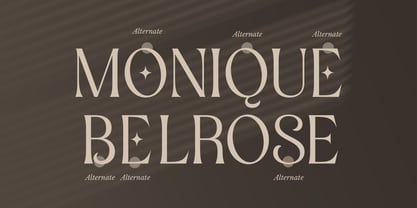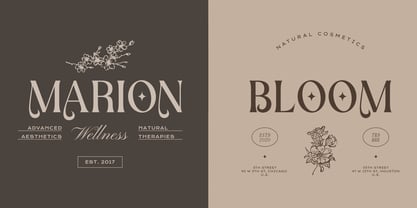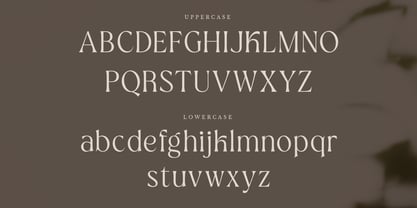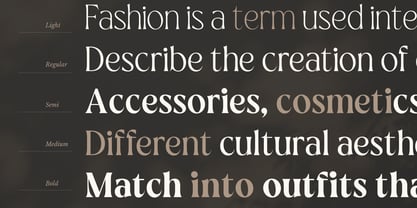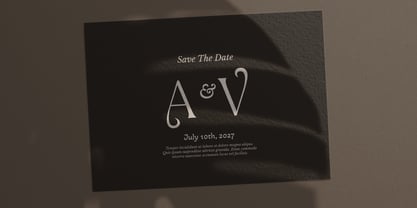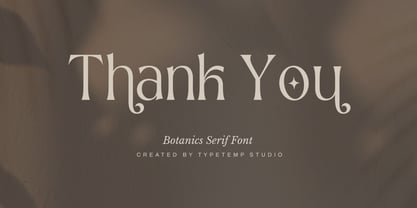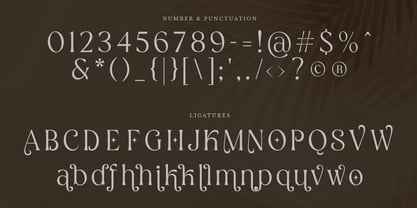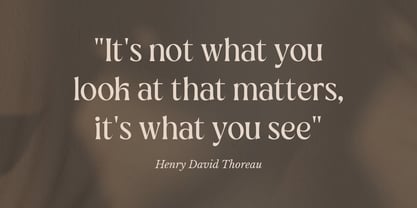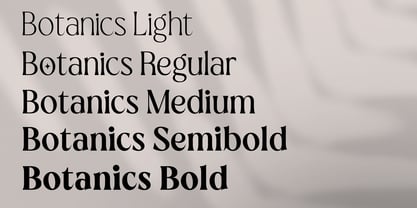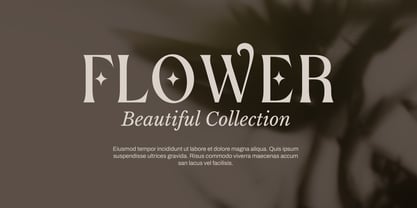
Botanics Display
by Typetemp Studio
The Botanics Display Font Family was designed by Haris Purnama Putra, Egi Ahmad Mufid and published by Typetemp Studio. Botanics Display contains 5 styles and family package options. More about this family
Botanics - Display Typeface is a Elegant Serif Display comes with 5 Weights (Light, Regular, Semi, Medimu, Bold), Variable, alternatives and ligatures, helps to create stunning Posters, Branding, Tshirt, Social Media Graphics and much more.
Designers: Haris Purnama Putra, Egi Ahmad Mufid
Foundry: Typetemp Studio